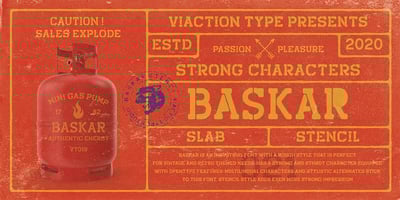
Baskar Stencil
Baskar Stencil font
Baskar Stencil Font Family was designed by Lukman Hidayat and published by Viaction Type.Co. Baskar Stencil contains 1 styles and family package options. Baskar Stencil is a display slab serif that you can nicely apply in various products. Complete with multilingual character set and stylistic alternates. It is suitable for quotes, clothing design, vintage logos, labels, posters, packaging and other designs.